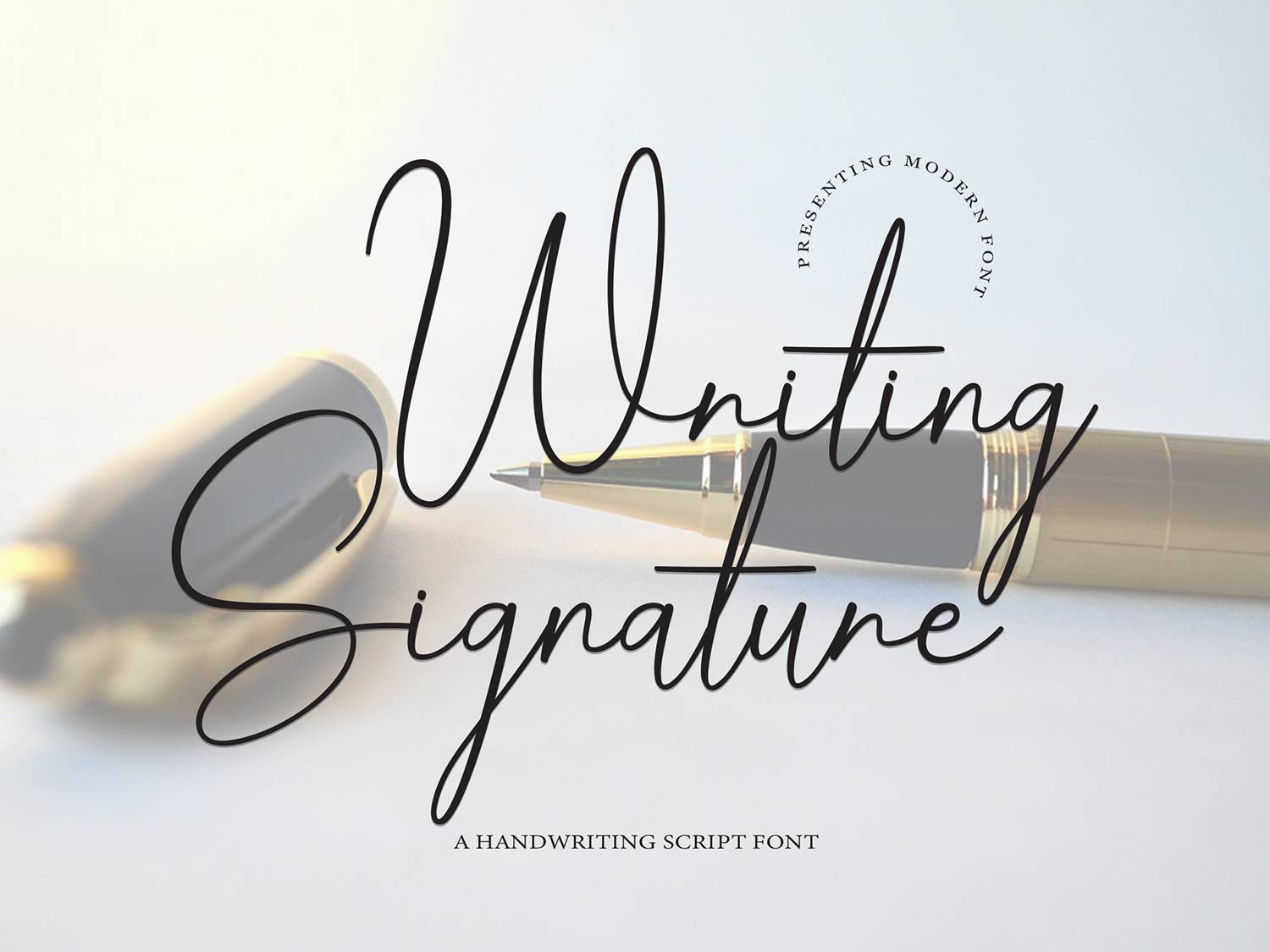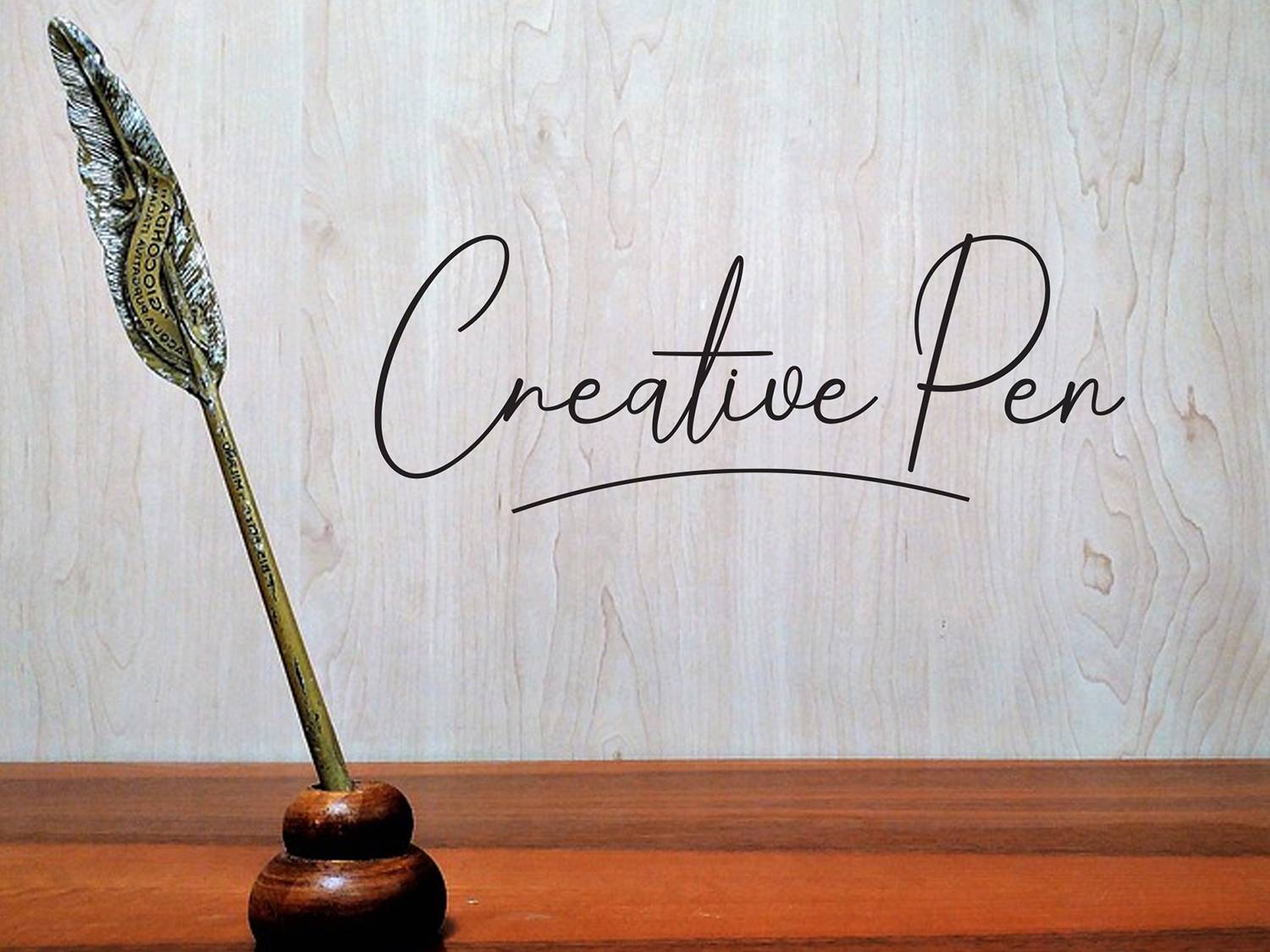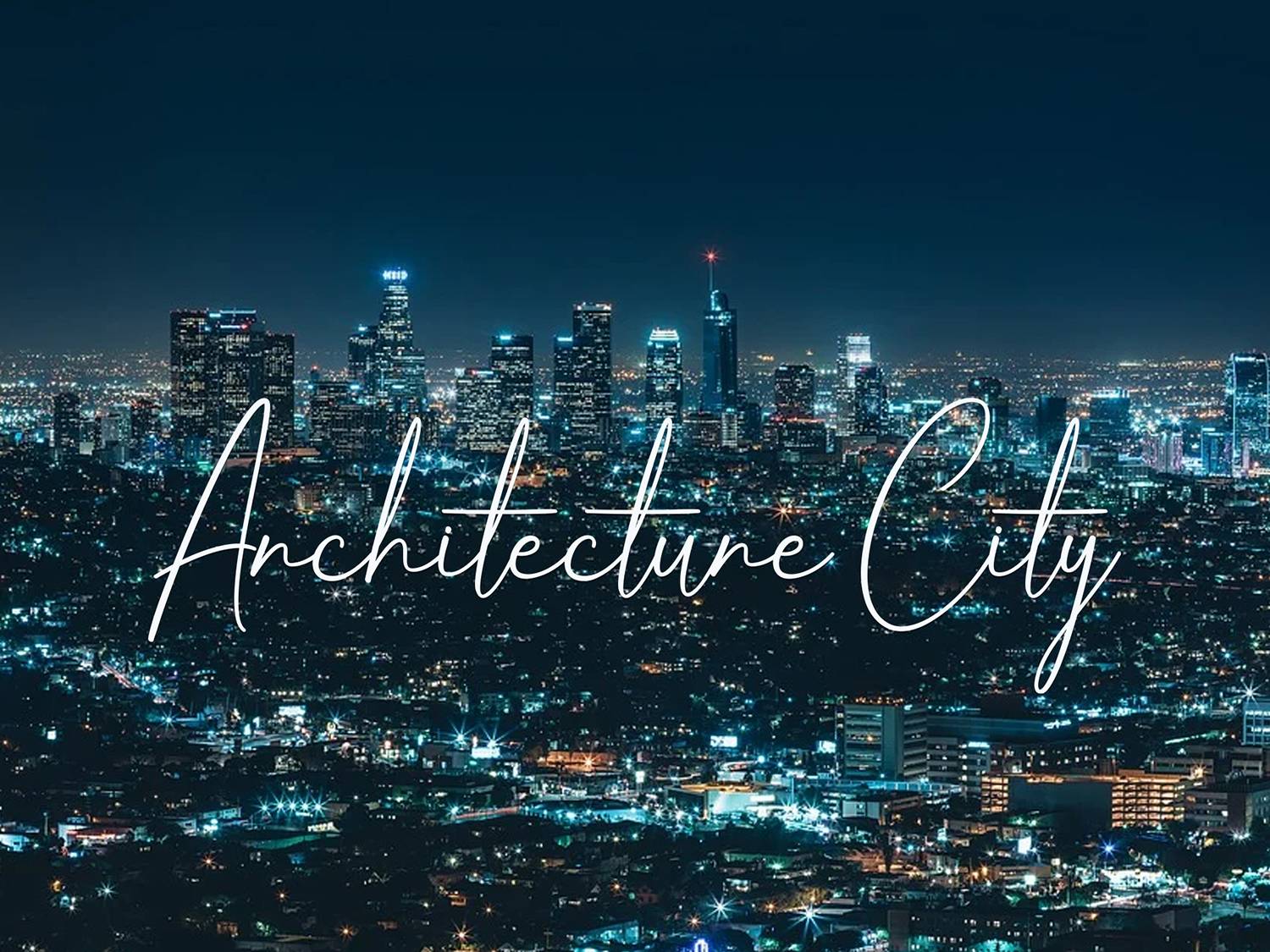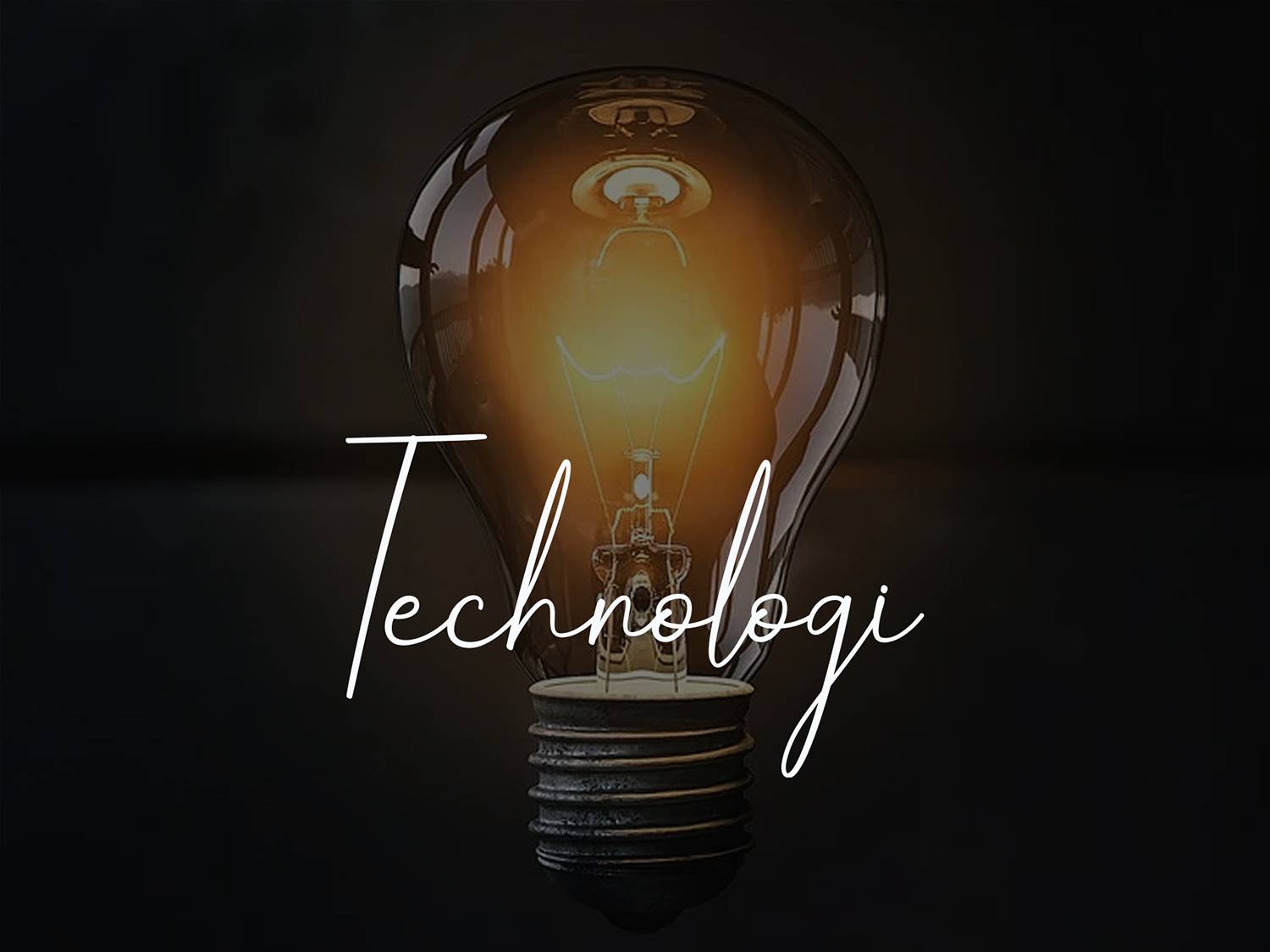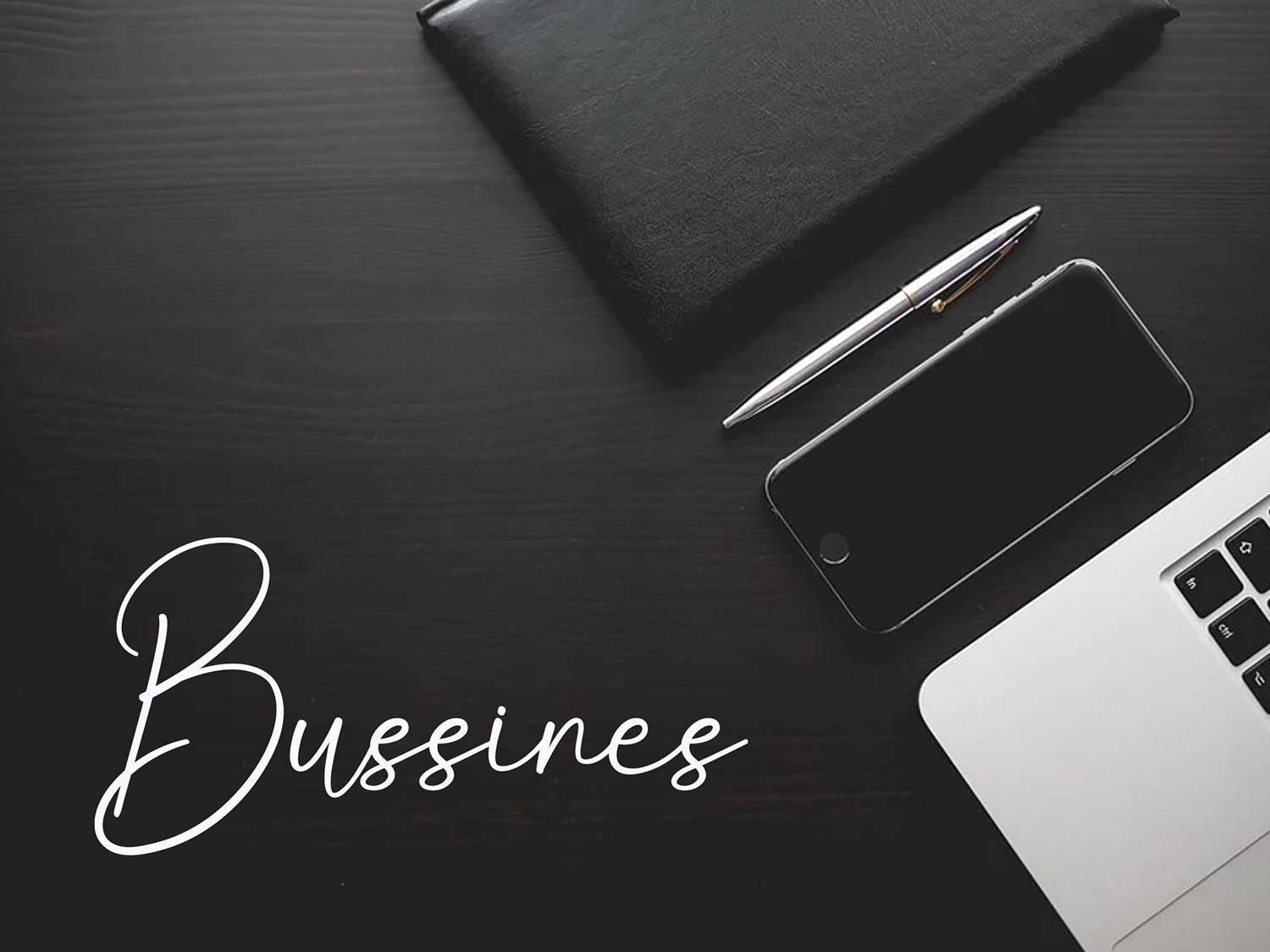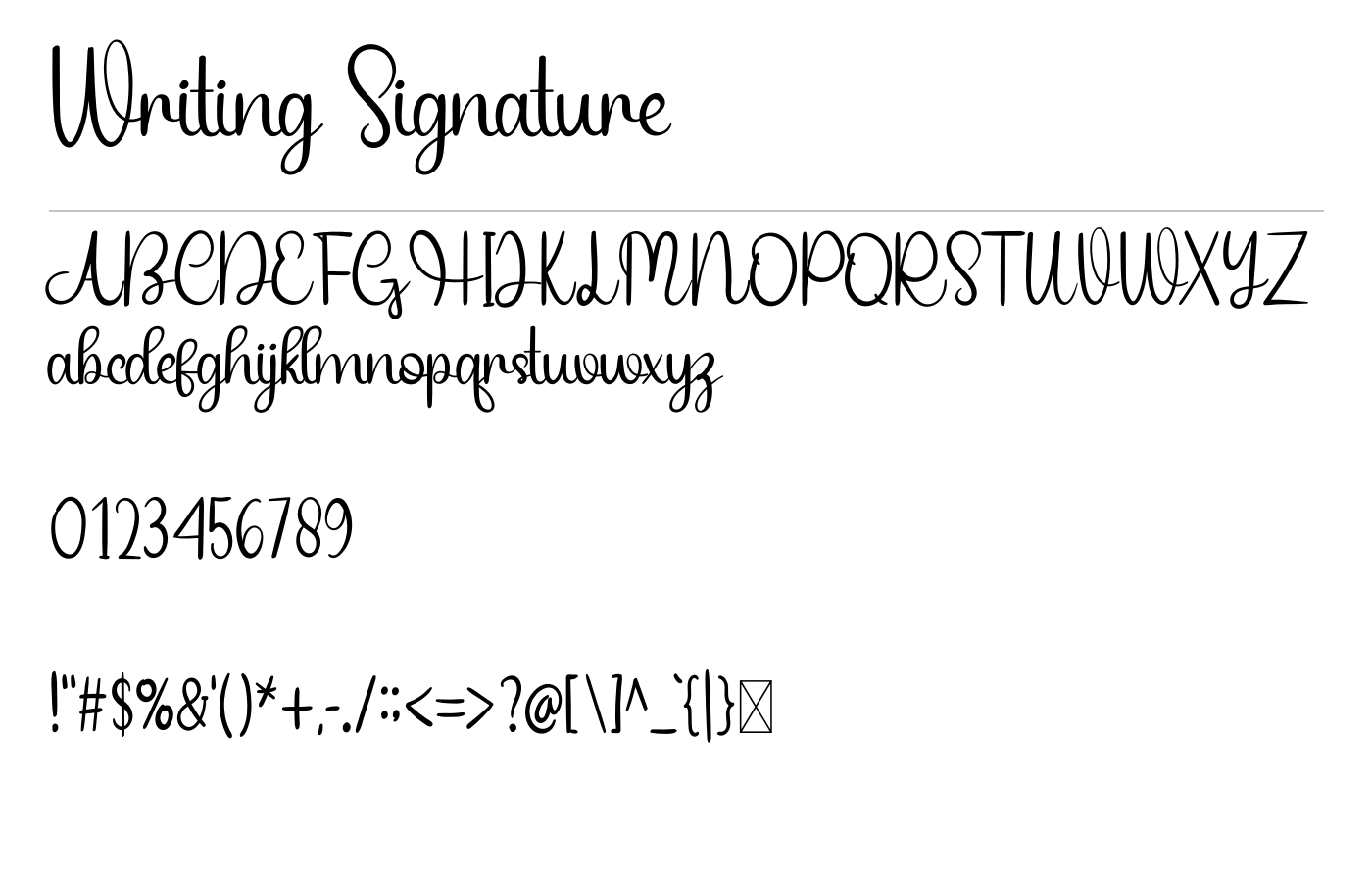
Writing Signature Font is a delicate and elegant script typeface that mimics natural handwritten signatures with its thin, flowing strokes and high-contrast lines. Its tall, slightly condensed letterforms and graceful curves give it a sophisticated yet approachable personality, making it ideal for personal branding, invitations, and stylish logos where a touch of refined authenticity is desired. This font works beautifully in contexts that need an intimate, bespoke feel without sacrificing readability.
Writing Signature Font
About Writing Signature Font
| Font family | Writing Signature Font |